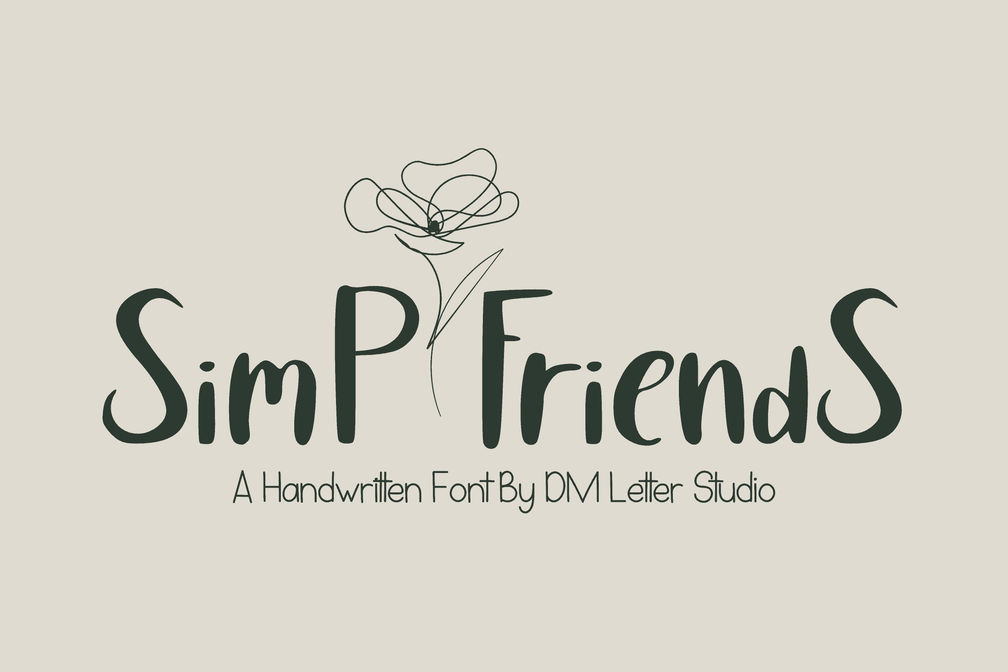
Simp Friends
Simp Friends – A Cute & Whimsical Handwritten Font
Simp Friends is a charming handwritten font designed with simplicity and joy in mind. With its playful strokes and casual lettering style, this font is perfect for friendly projects, children’s designs, greeting cards, social media posts, and more. Simp Friends brings a lighthearted, fun-loving personality to any design, making it feel warm and approachable.
• Playful Handwritten Style – Light, cheerful strokes for a friendly and relaxed vibe.
• Perfect for Cute Projects – Great for quotes, cards, stickers, and kids’ designs.
• Whimsical & Casual Look – Adds charm and fun to your creative work.